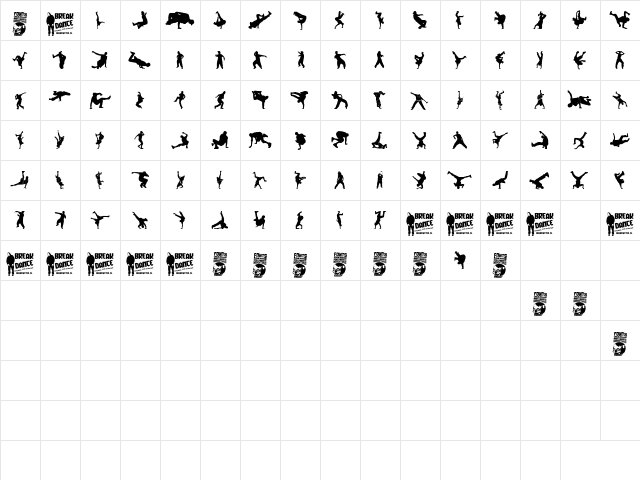
Breakdance Regular
| Designer | Woodcutter Manero |
Design Context for Breakdance Typeface
Breakdance is a composed and adaptable typeface that performs quietly and consistently across a wide range of design contexts.